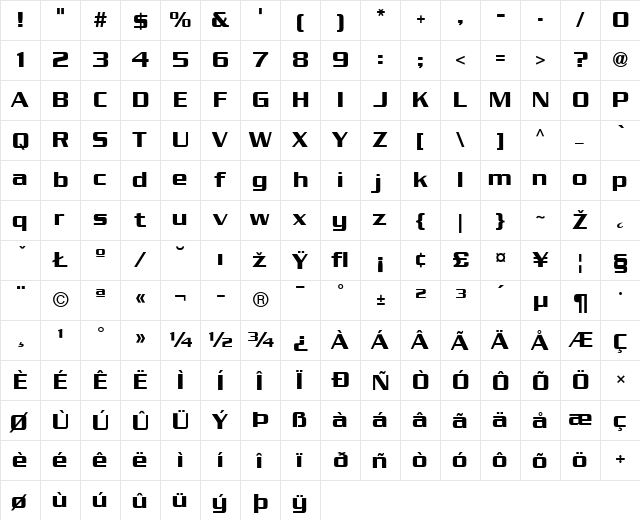
SerpentineSans Regular Font Preview
SerpentineSans Regular
Design Context for SerpentineSans Typeface
SerpentineSans offers clean, dependable letterforms without strong stylistic allegiance, making it a practical choice for designers who need flexibility.